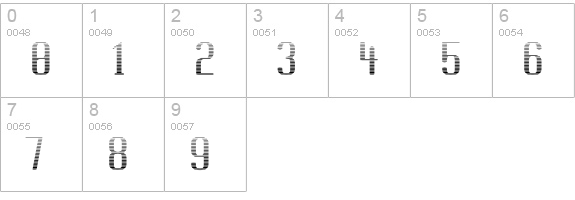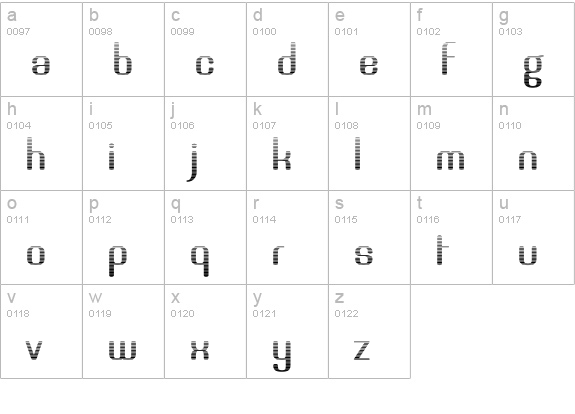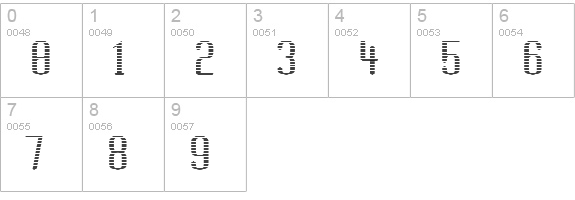
Brassiere Line Font Details
Introducing Brassiere Line font, a sleek and modern typeface designed to make a bold statement in your projects. This font features clean lines and a sophisticated style that exudes elegance and professionalism. Perfect for headlines, branding, logos, and more, Brassiere Line font adds a touch of sophistication to any design. What's even better is that Brassiere Line font is available for free download at FontsMarket.com! This means you can easily access and use this stunning font in your projects without any cost. Don't miss out on the opportunity to enhance your designs with the timeless appeal of Brassiere Line font. Download it today and elevate your typography game to the next level.